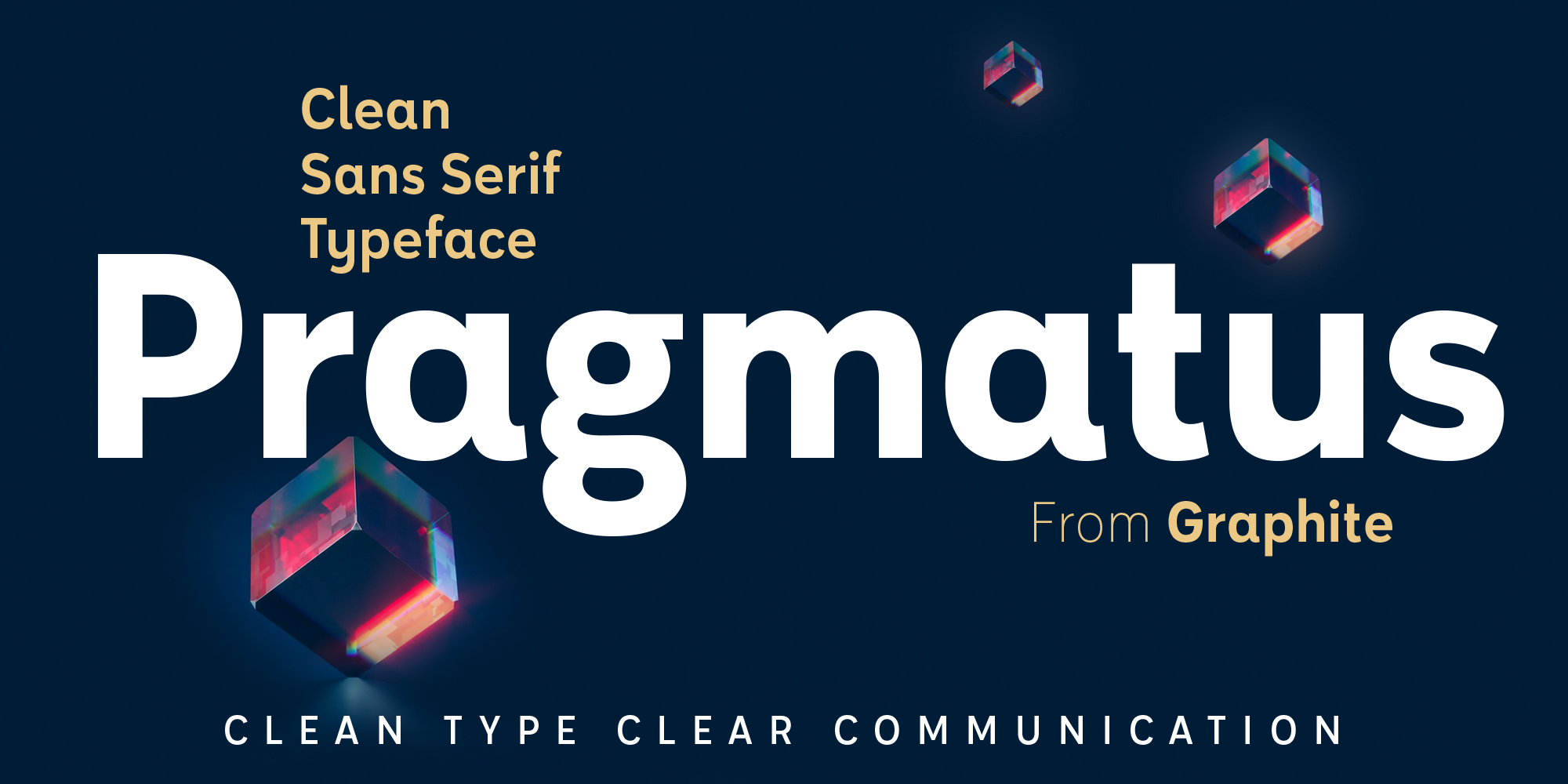
Pragmatus Font is perfect for consulting firm branding, business strategy presentations, corporate efficiency reports, professional service logos, executive communications, management consulting materials, and practical business solutions.
What makes Pragmatus Font exciting is its pragmatic efficiency and business-focused clarity, featuring practical letterforms that capture the essence of strategic thinking while delivering exceptional functionality and professional effectiveness.
The Pragmatus Font family includes Light, Regular, Medium, Bold, and Black weights, plus condensed variants and business alternates that enhance the font's practical character and professional versatility.
Pragmatus Font Free Download represents the pinnacle of practical business typography and strategic communication design. This efficient typeface embodies the principles of pragmatic thinking and results-oriented business solutions, creating a functional visual language that speaks to professionals who value practical approaches, strategic efficiency, and evidence-based decision making. The font's practical character and business appearance make it ideal for consulting firms, strategic advisors, and solution-focused organizations that want to communicate competence, reliability, and the proven effectiveness of pragmatic business methodology.
Business consultants and strategic organizations consistently select Pragmatus Font for projects that require authentic business credibility and practical visual appeal. The typeface's efficient construction and pragmatic personality make it exceptionally effective for management consulting firms, business advisors, and strategic planning organizations where practical solutions and business effectiveness are paramount. Each character has been designed with strategic precision to ensure optimal performance across all business applications and professional environments.
The business advantages of Pragmatus Font extend beyond its practical appeal to include functional efficiency for diverse professional applications. The font maintains exceptional legibility in complex business documents while delivering the distinctive character that creates effective business communications and connects with audiences seeking practical, results-driven solutions. Its comprehensive character set includes business symbols and strategic elements that make it particularly suitable for consulting documentation and professional communication.
Management consulting firms, business strategy companies, and solution-focused organizations frequently choose Pragmatus Font because of its ability to instantly convey business expertise and practical effectiveness. The typeface's pragmatic aesthetic helps establish credibility in competitive consulting markets while appealing to clients who value strategic thinking, practical solutions, and the proven results that come from evidence-based business methodology and pragmatic professional approaches.